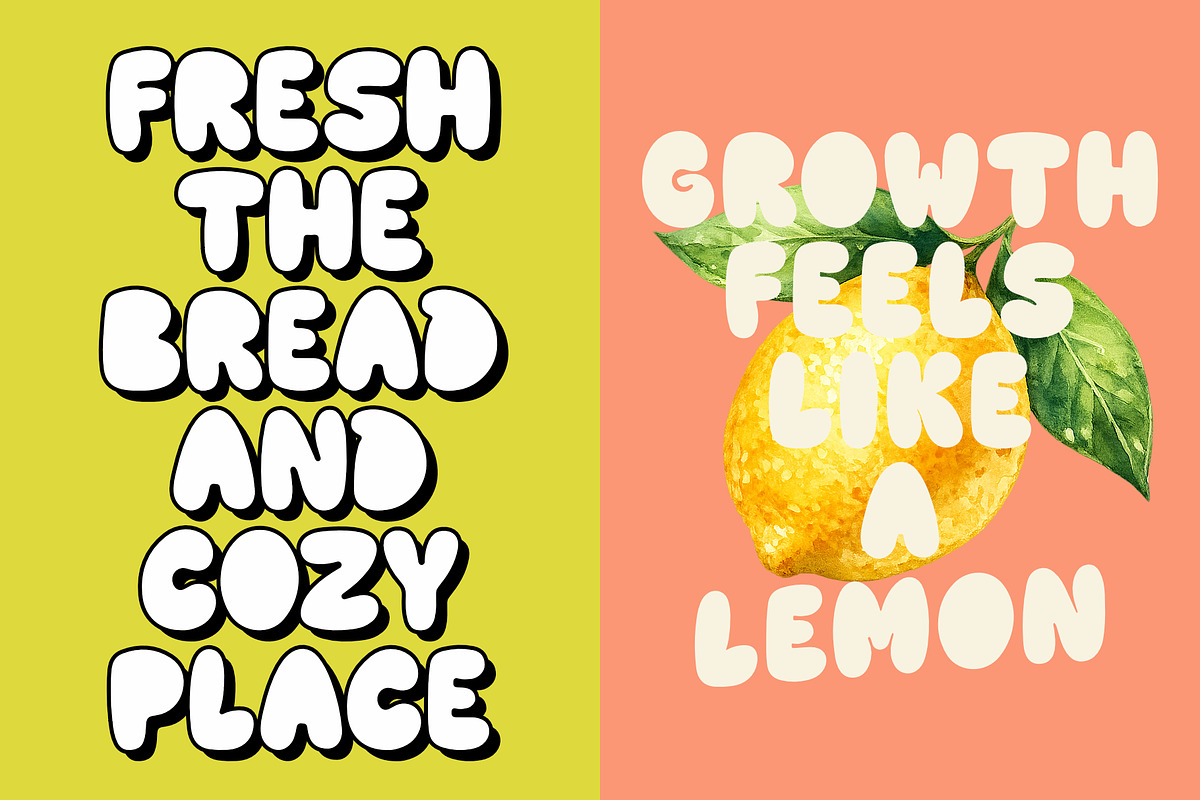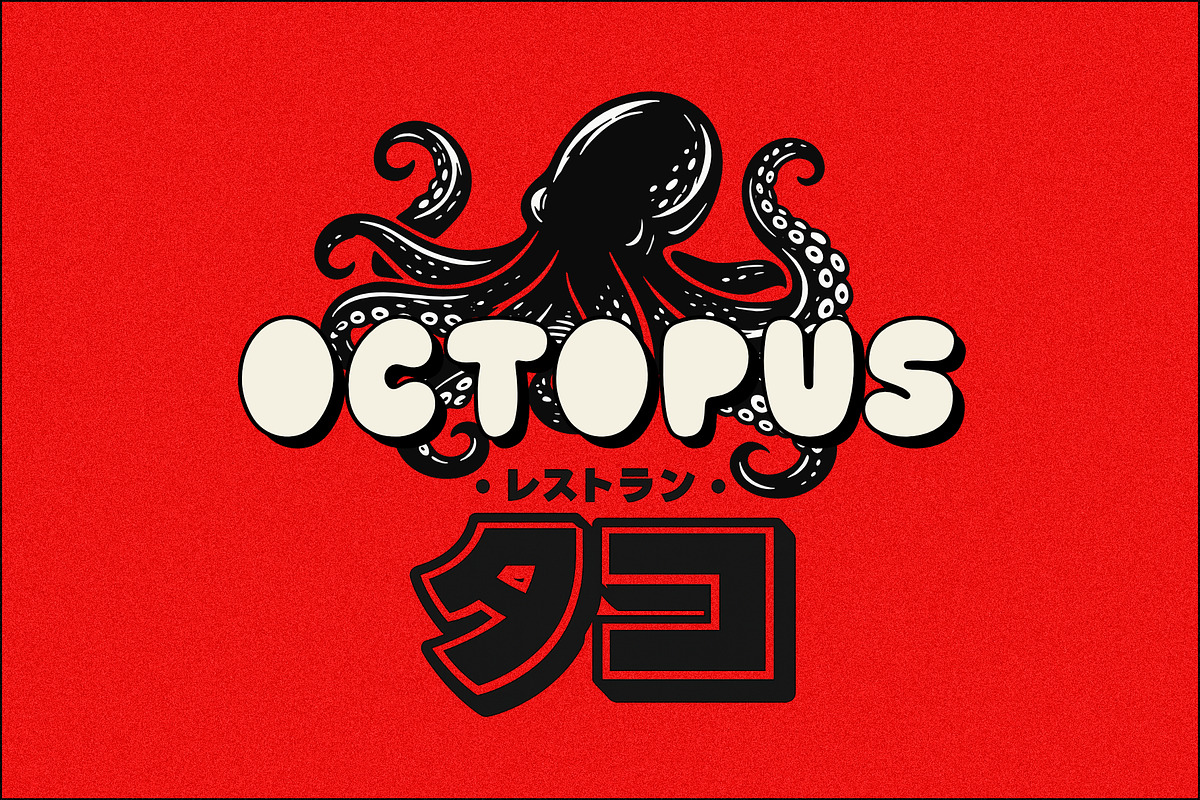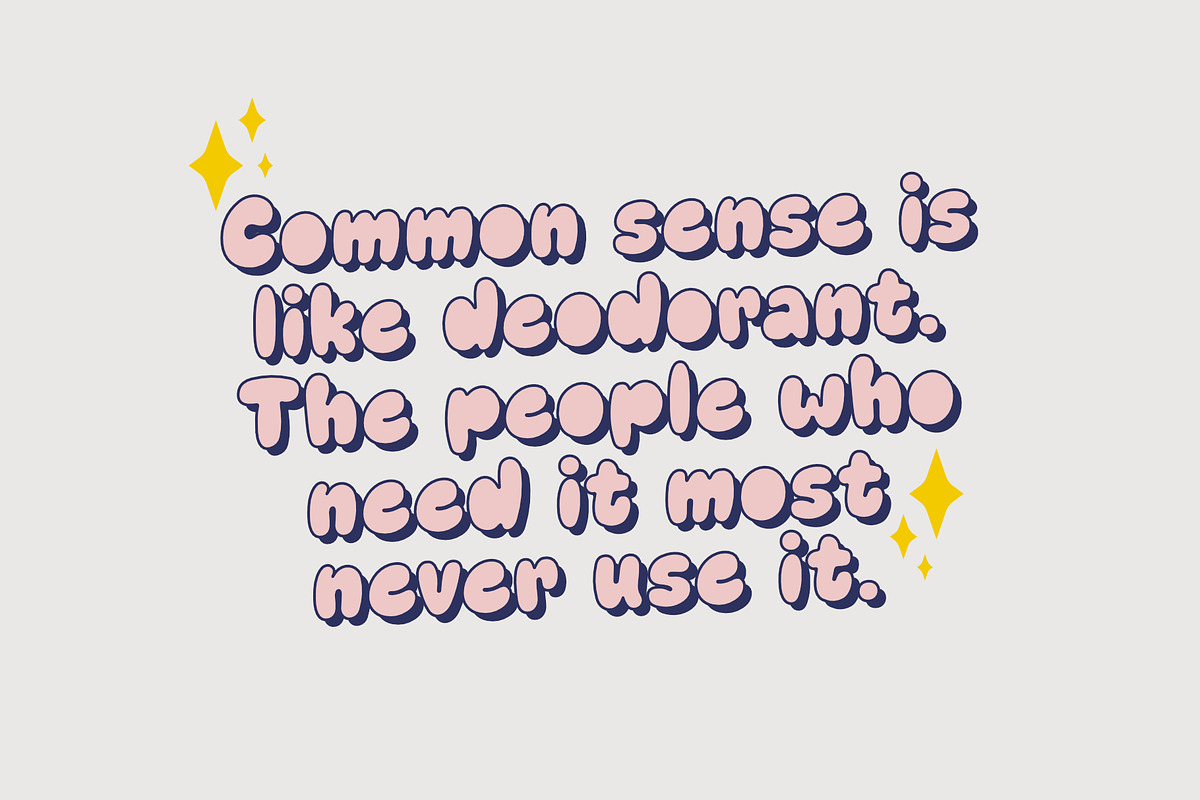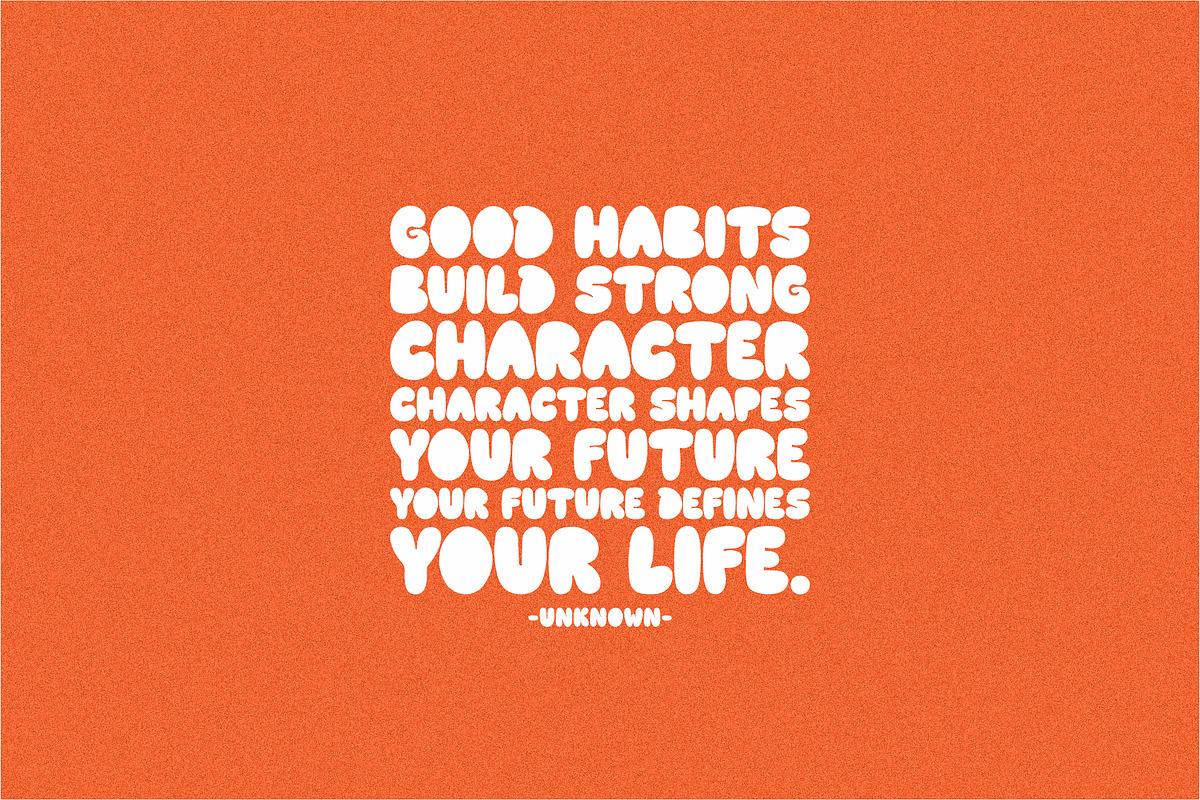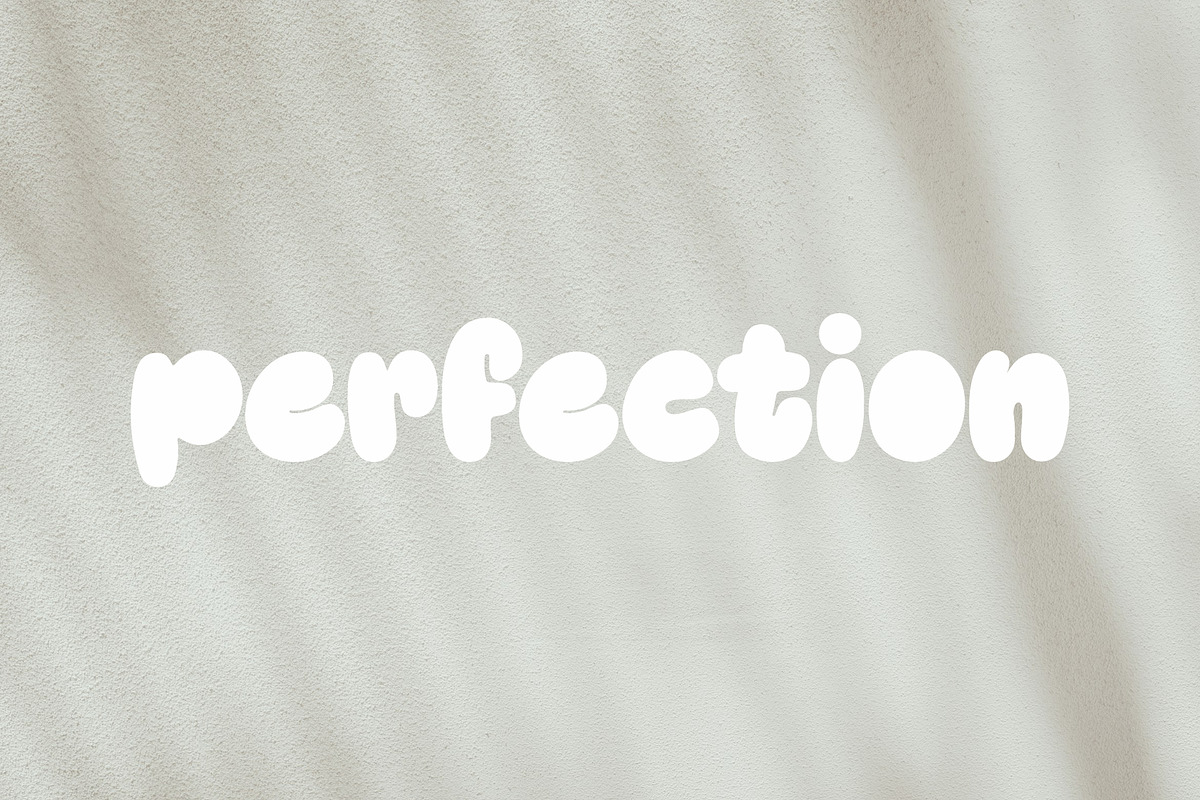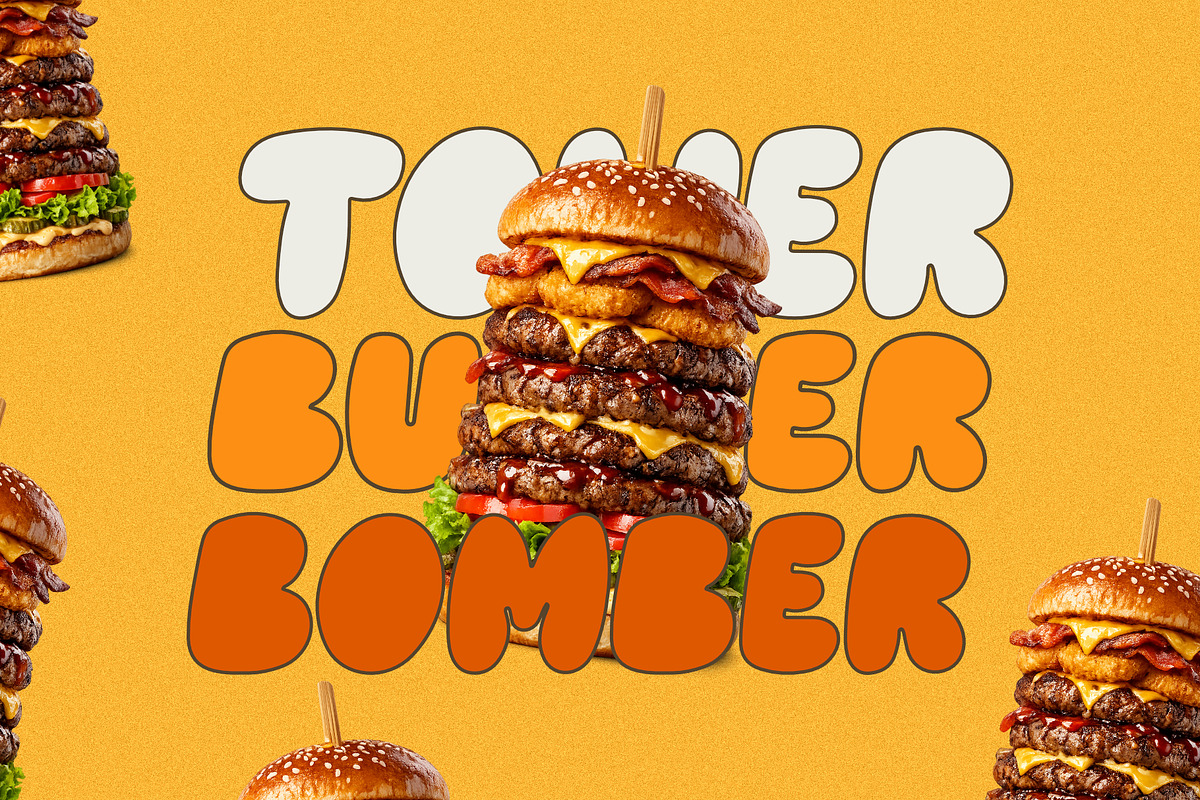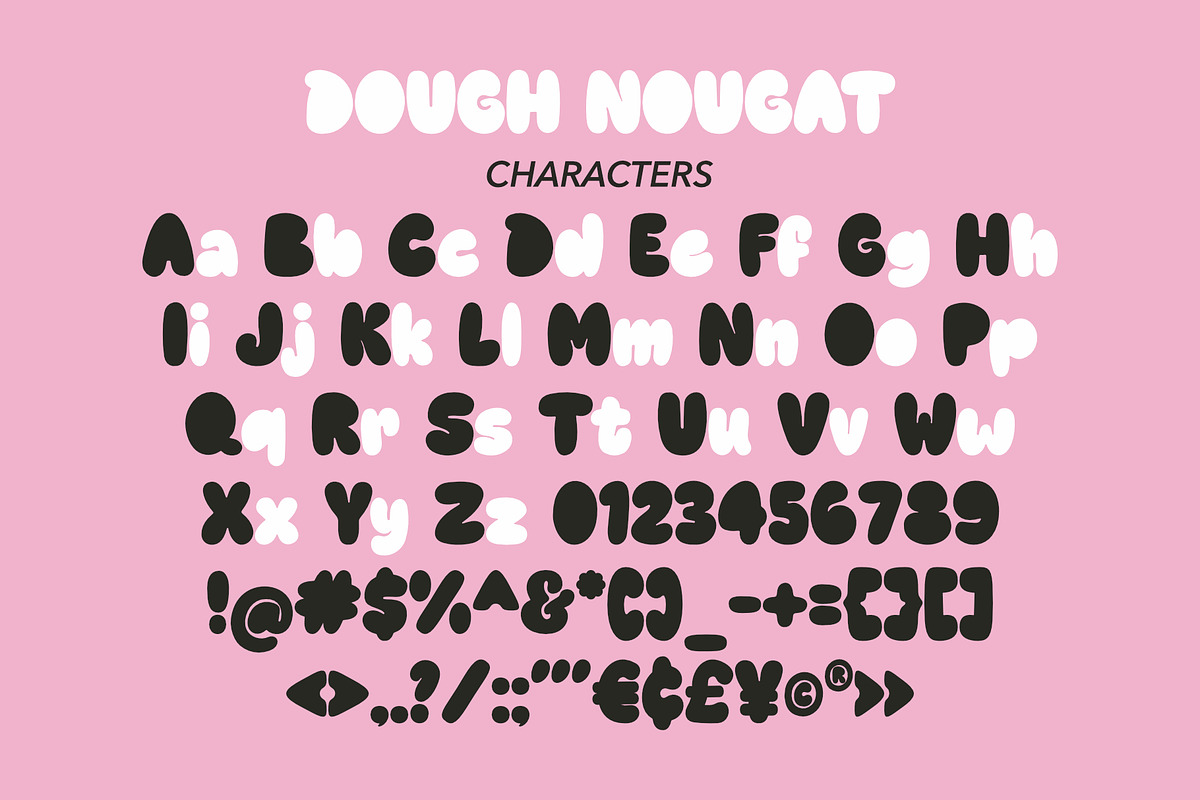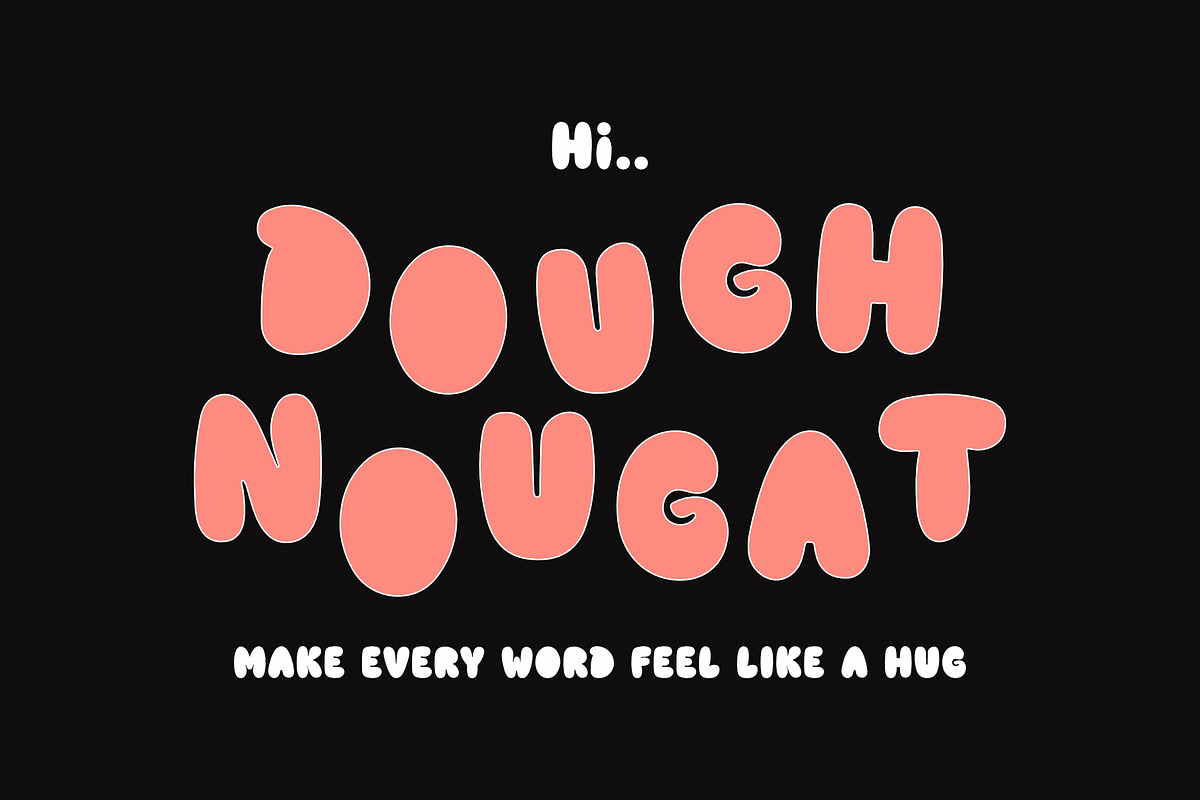
Dough Nougat
Introducing Dough Nougat — a playful bubbly display font packed with soft curves, chunky shapes, and a cheerful personality. Inspired by retro groovy aesthetics and sweet candy-like forms, this font brings a warm and fun vibe to every design.
Perfect for branding, packaging, posters, children’s projects, social media graphics, café menus, stickers, quotes, and creative merchandise. Its bold rounded letters make your typography feel friendly, expressive, and impossible to ignore.
Whether you're creating fun logos or eye-catching headlines, Dough Nougat adds a deliciously cute touch to your work.
Uppercase & lowercase
Fun retro bubble style
Easy to use
Perfect for: Branding, logos, packaging, posters, café design, kids projects, YouTube thumbnails, social media posts, quotes, stickers, apparel, and more.